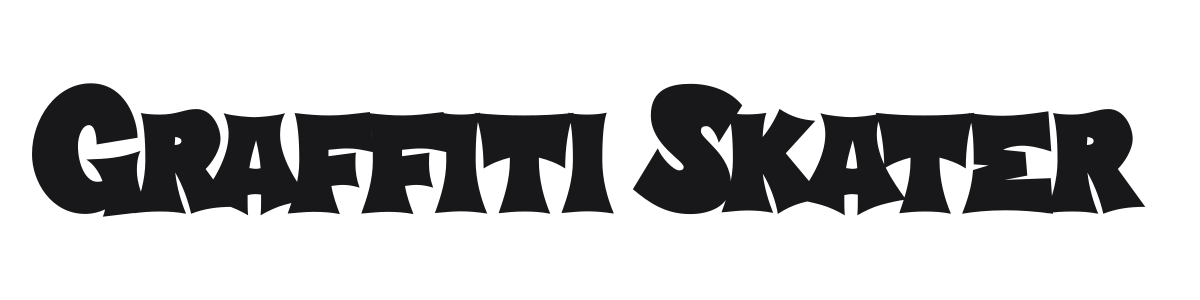
Graffiti Skater
Graffiti Skater is a heavy display font by Nirmana Visual that merges 1970s groovy lettering with urban graffiti energy. Thick, blocky forms are punctuated by sharp notches cutting into the strokes at key joints, creating a raw, chunky rhythm across any headline. The design reads instantly as skate and street culture without leaning on cliché.